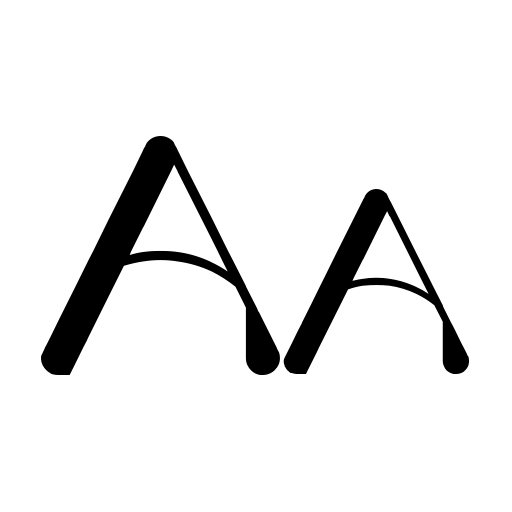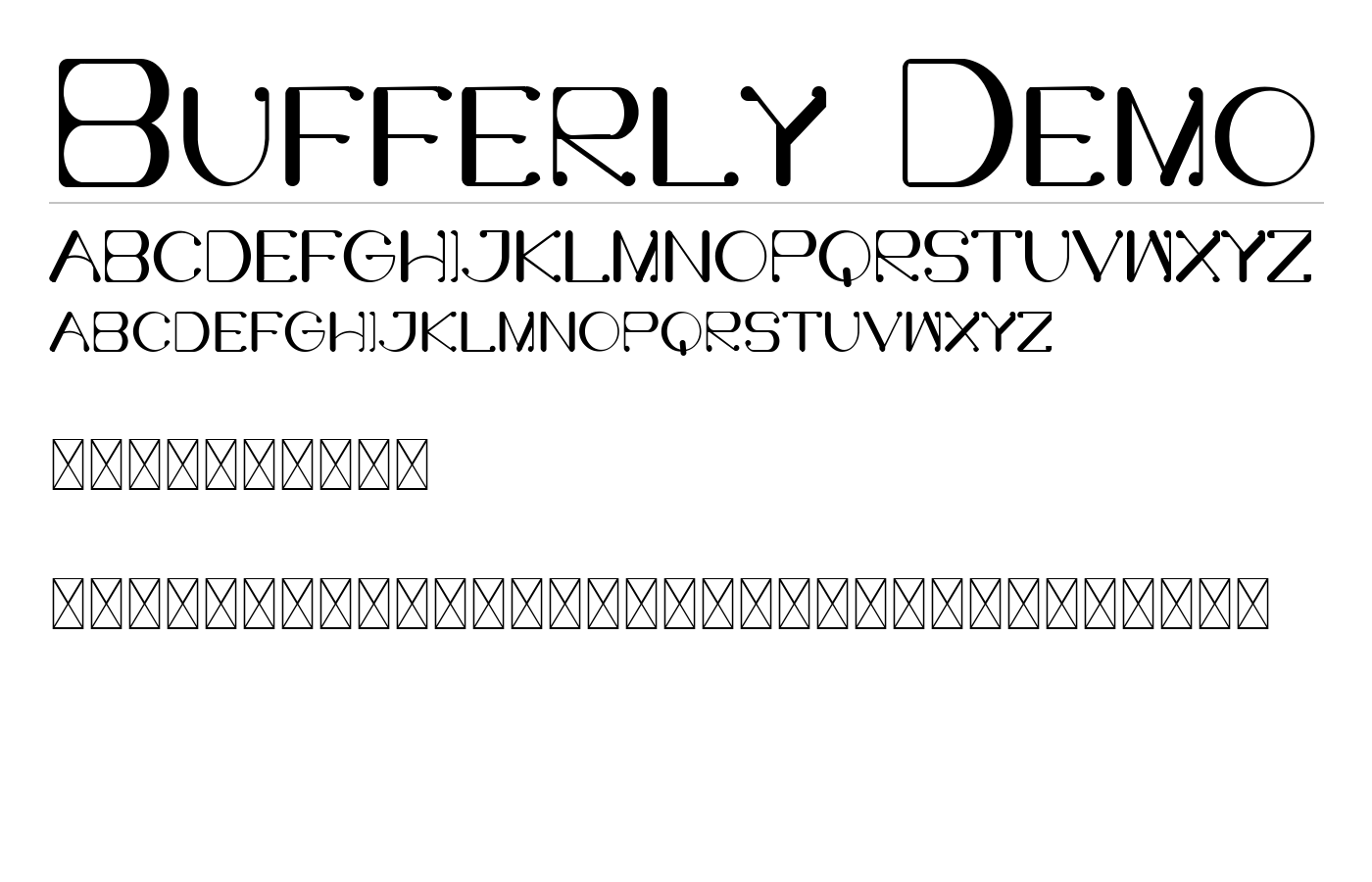
Bufferly Demo is a unique display font that blends geometric shapes with delicate, dot-accented strokes, creating a futuristic and artistic feel. Its light weight and thin lines give it an airy, elegant appearance, making it perfect for creative branding, posters, and editorial projects that seek a modern, playful touch with a hint of sophistication. This font works best in headlines or logos where its distinct style can stand out and capture attention.
Bufferly Demo Font
About Bufferly Demo Font